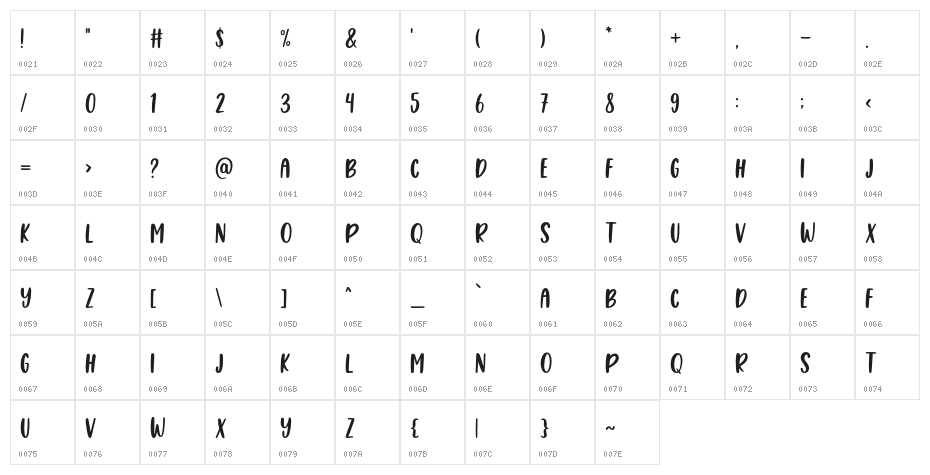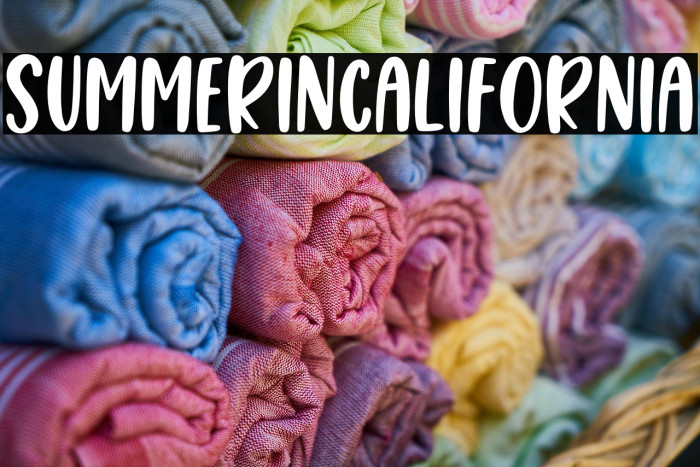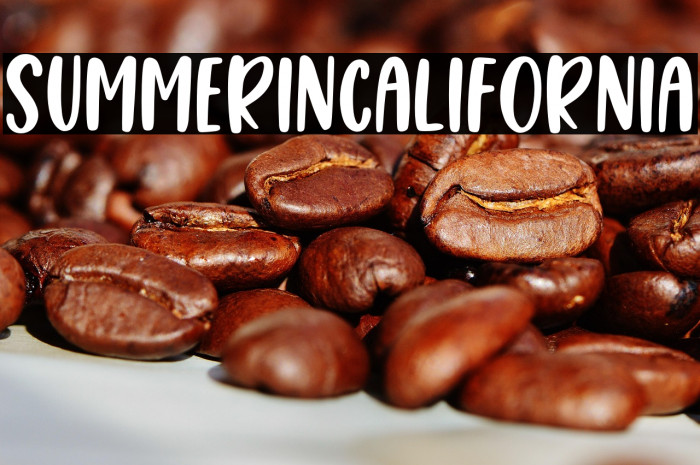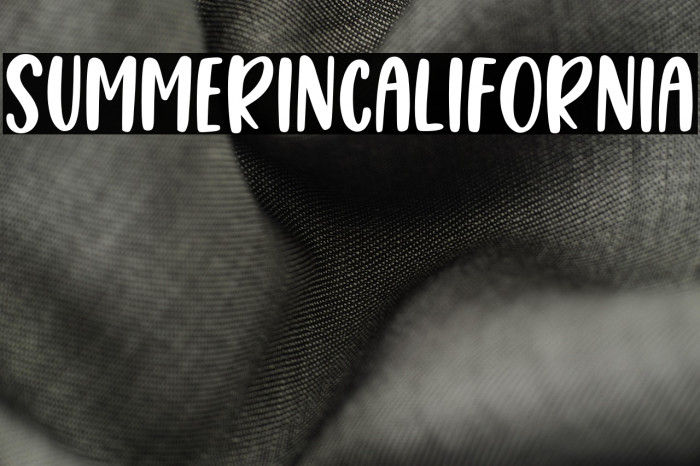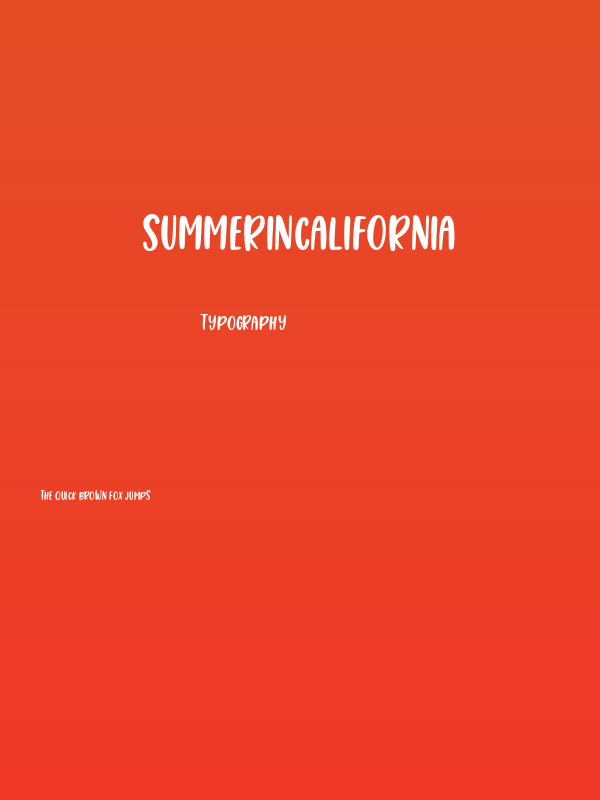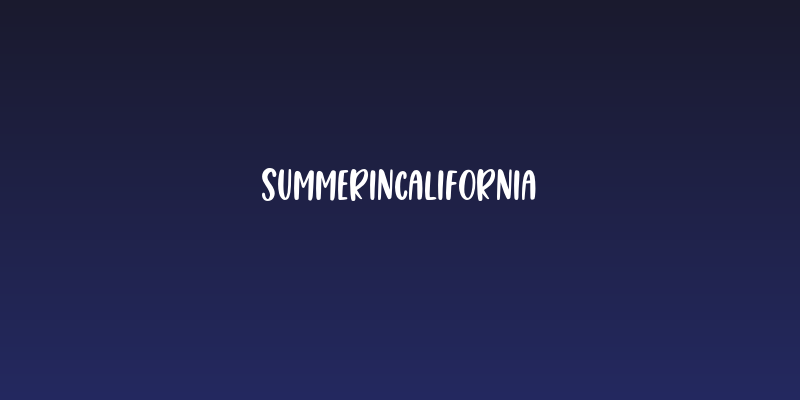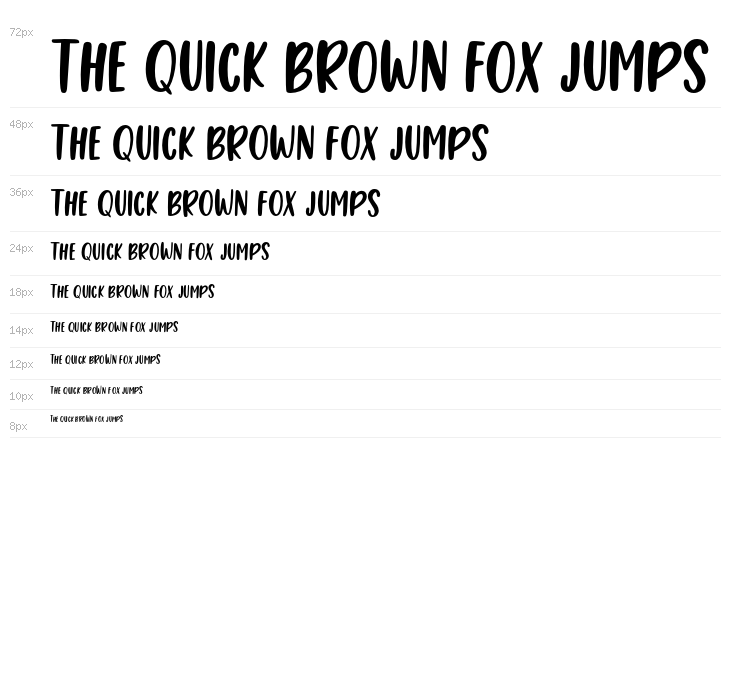
SummerInCalifornia Font
SummerInCalifornia Description
This font exudes a playful and casual vibe, characterized by its smooth, rounded edges and slightly irregular strokes that give it a handwritten feel. The letters are bold and have a consistent thickness, contributing to a friendly and approachable appearance. The uppercase and lowercase letters maintain a uniform style, with a slight slant that adds a dynamic touch. The numerals and special characters are designed to match the overall aesthetic, ensuring a cohesive look across all text elements. This font is perfect for projects that require a personal and informal touch, such as invitations, greeting cards, or social media graphics.
| Overall Style | Casual |
| Proposed Projects | Ideal for invitations, greeting cards, social media graphics, and informal branding. |